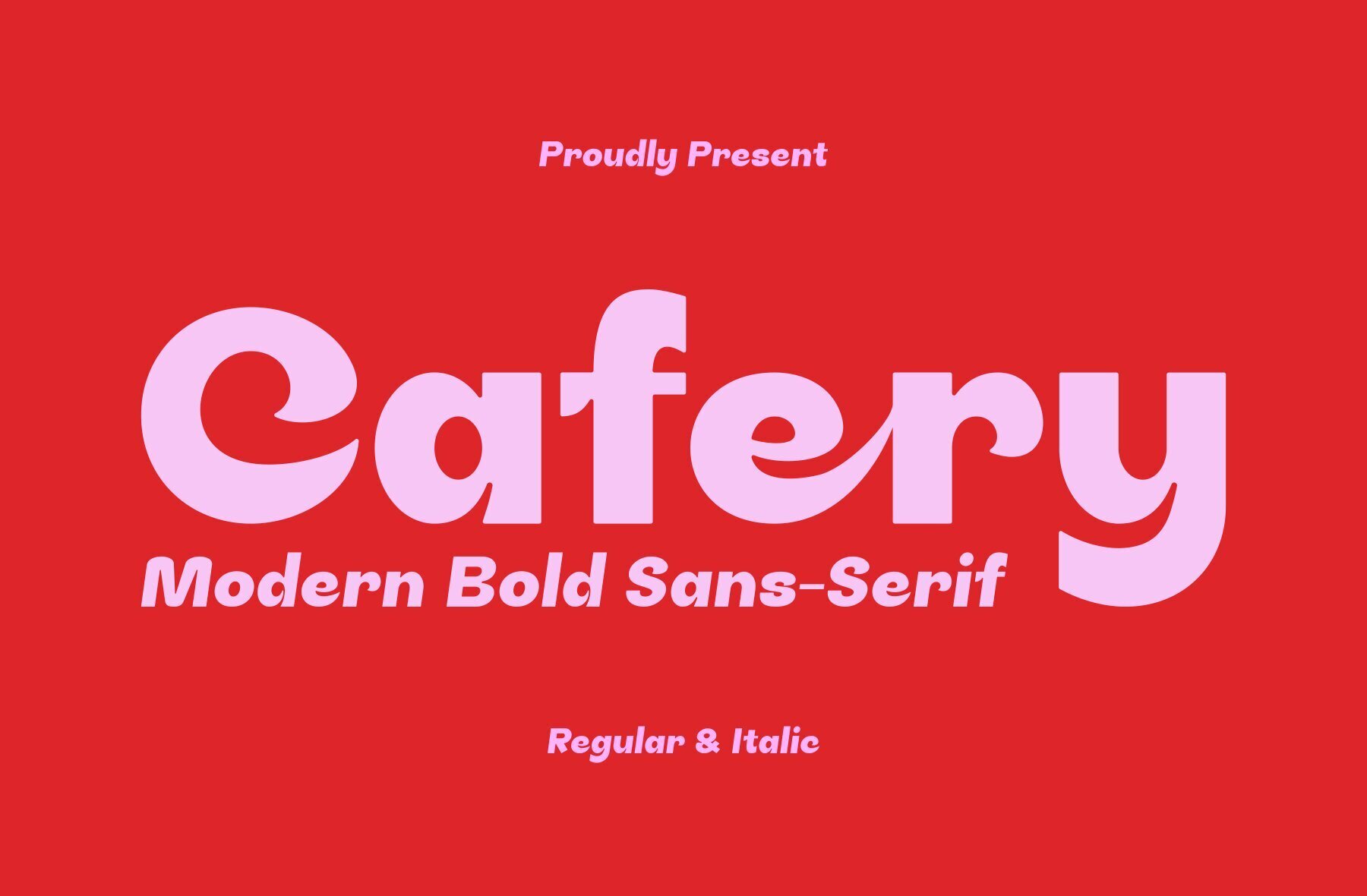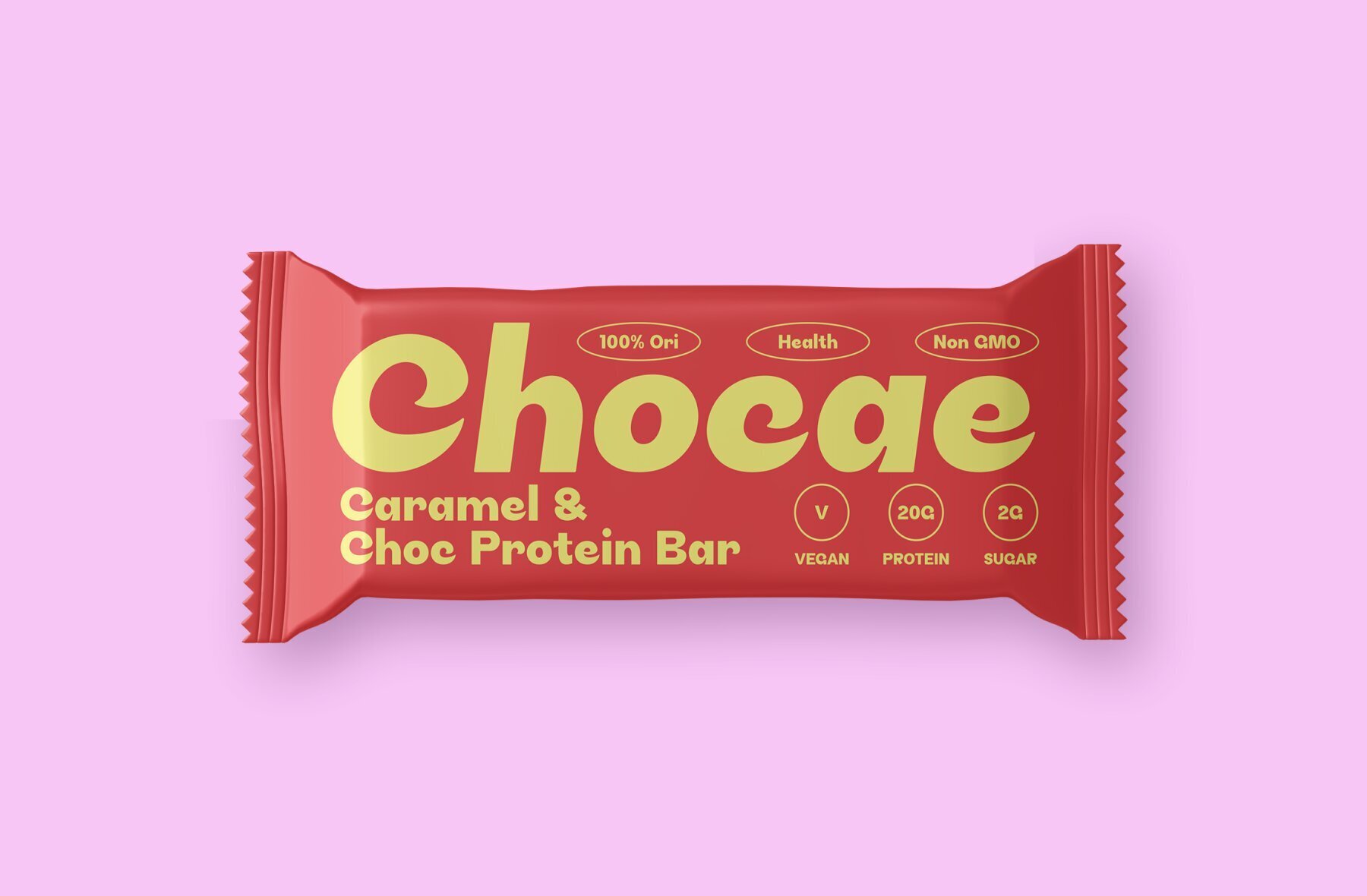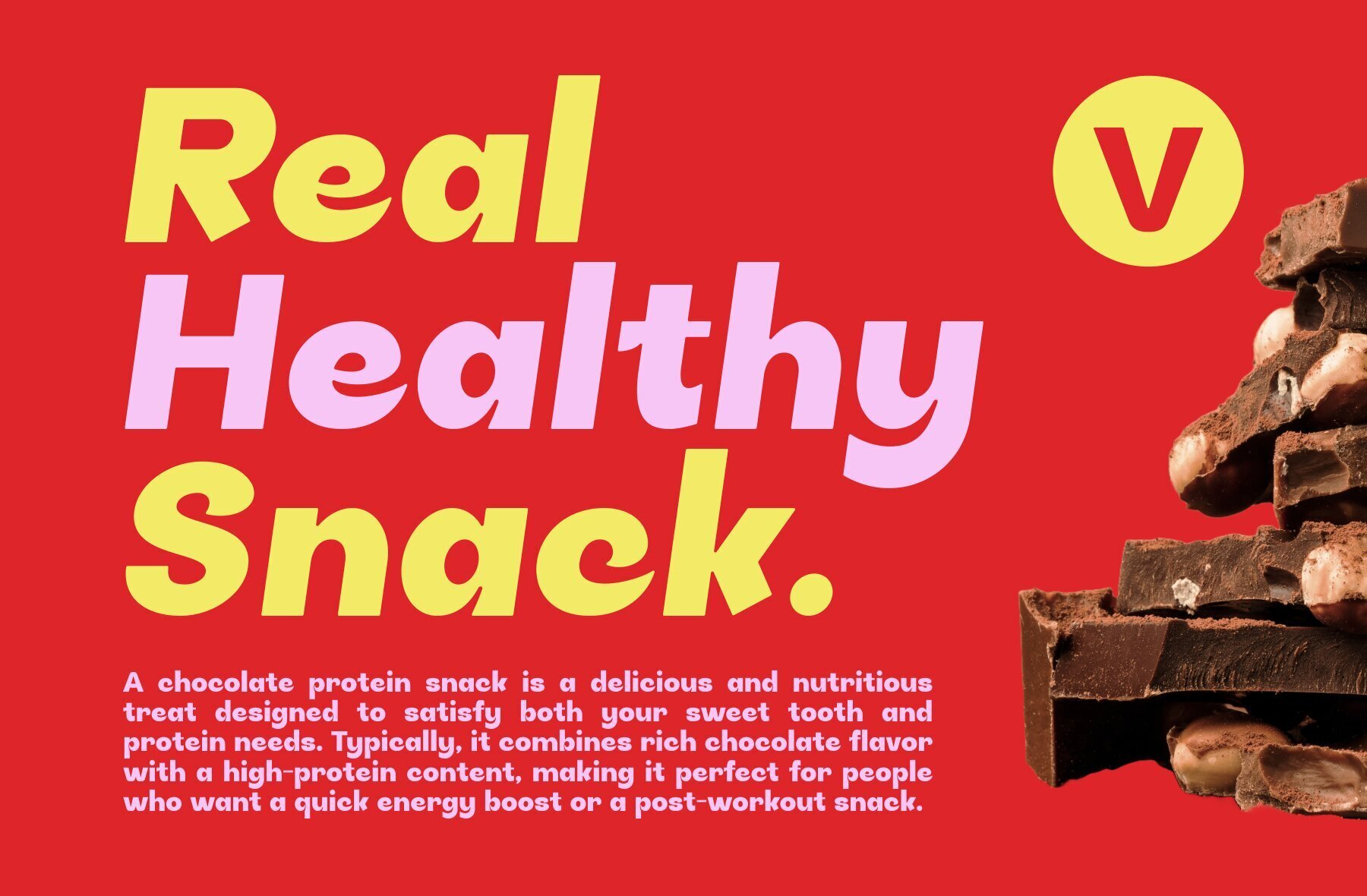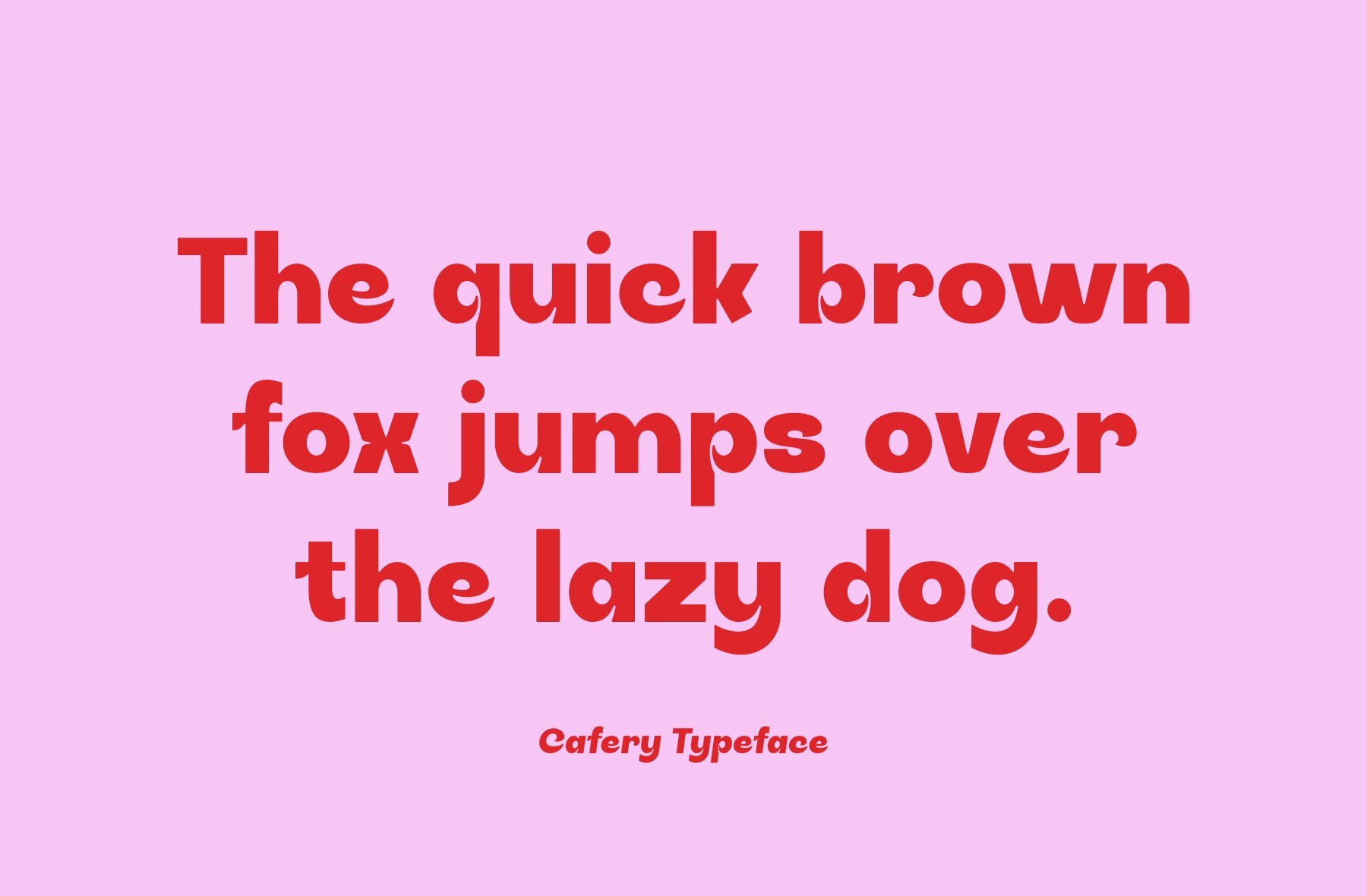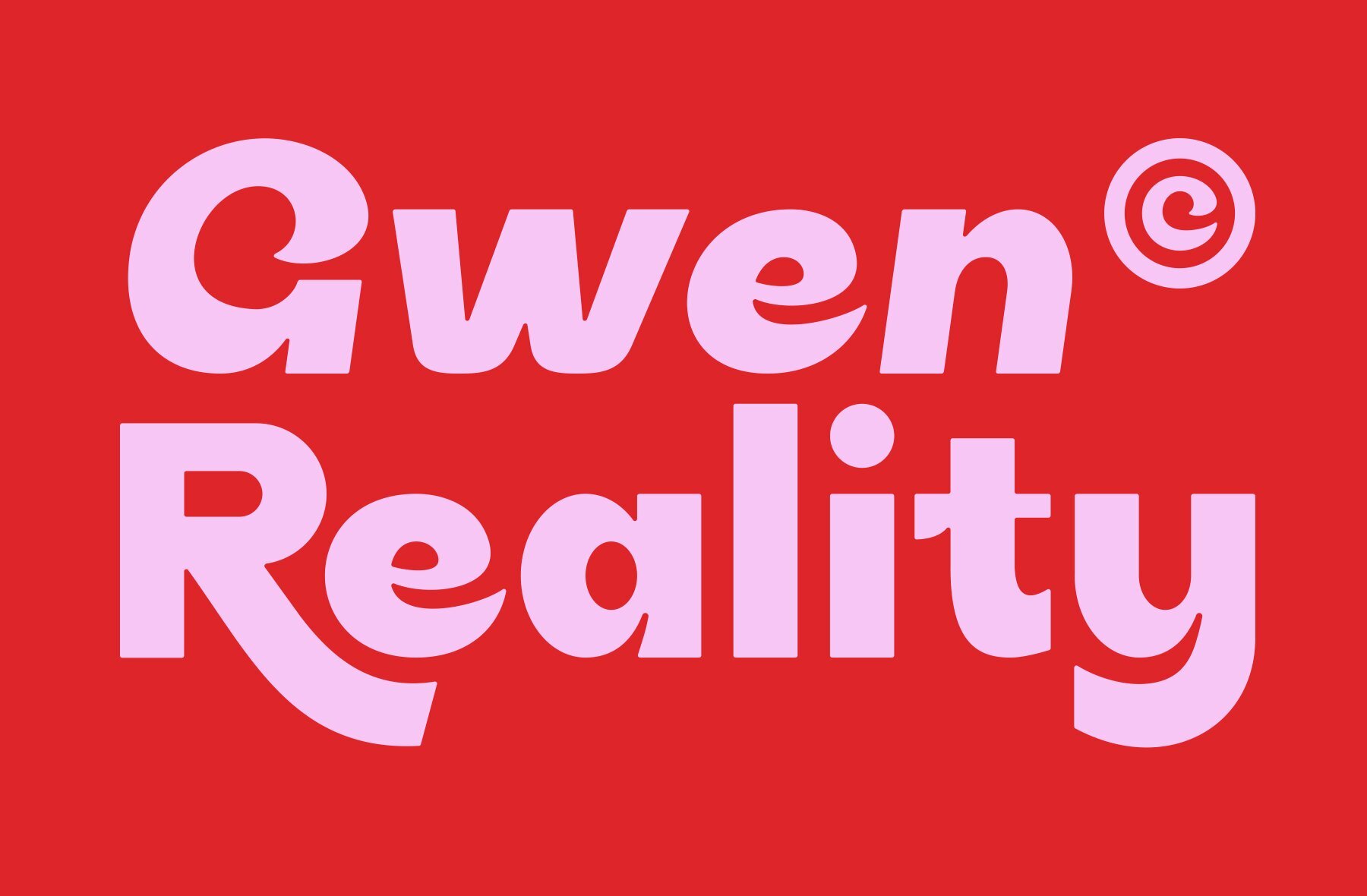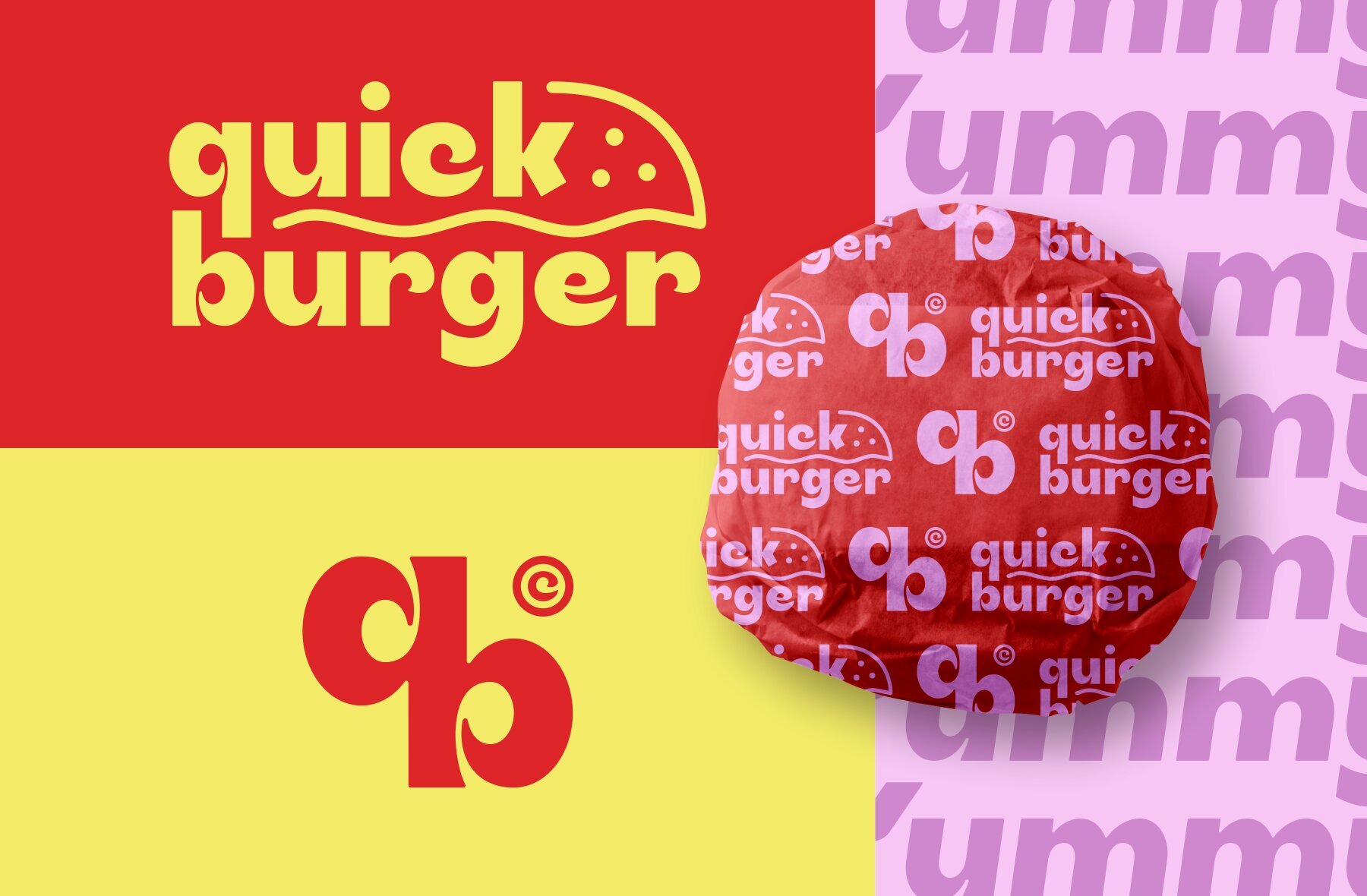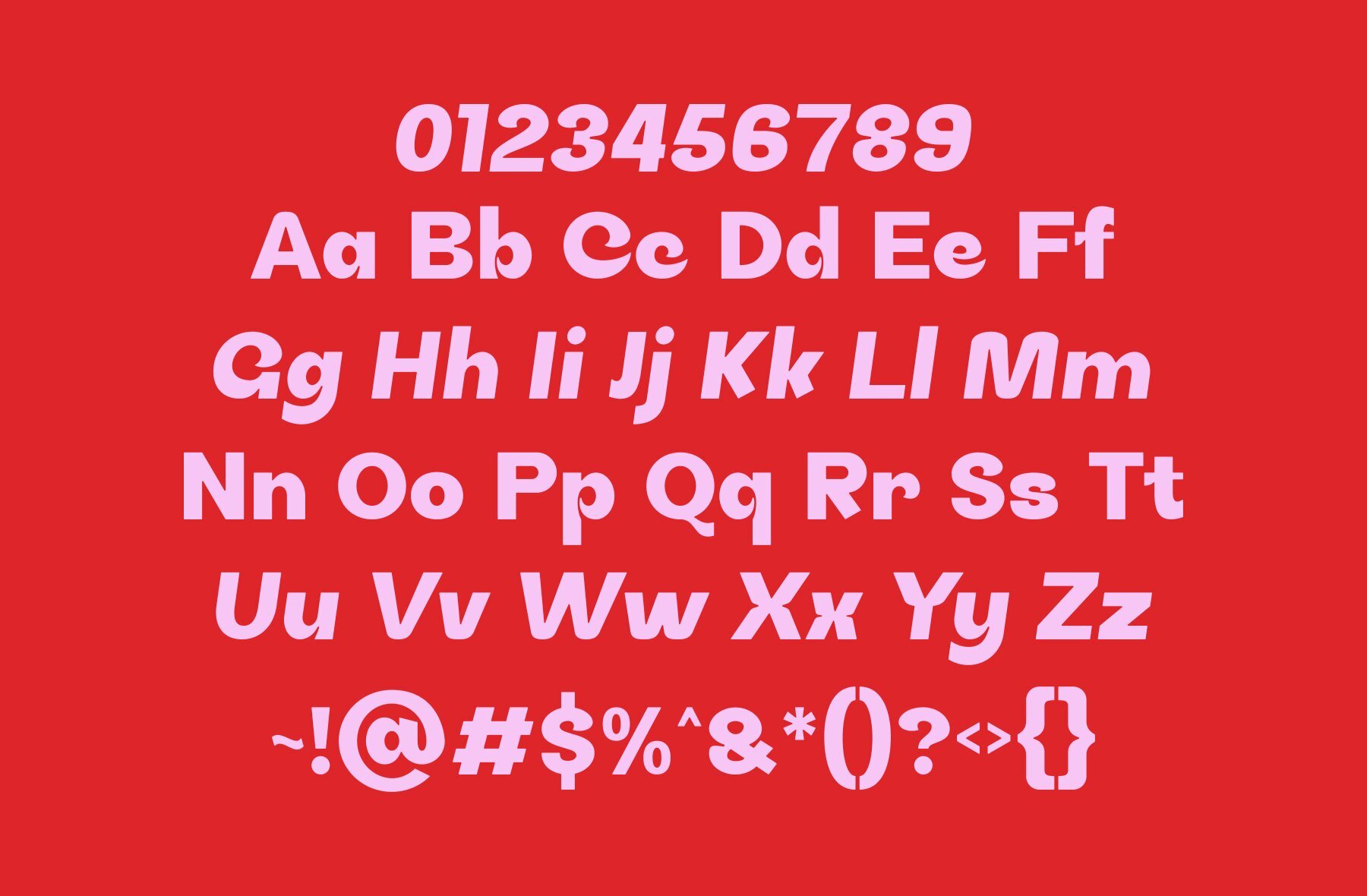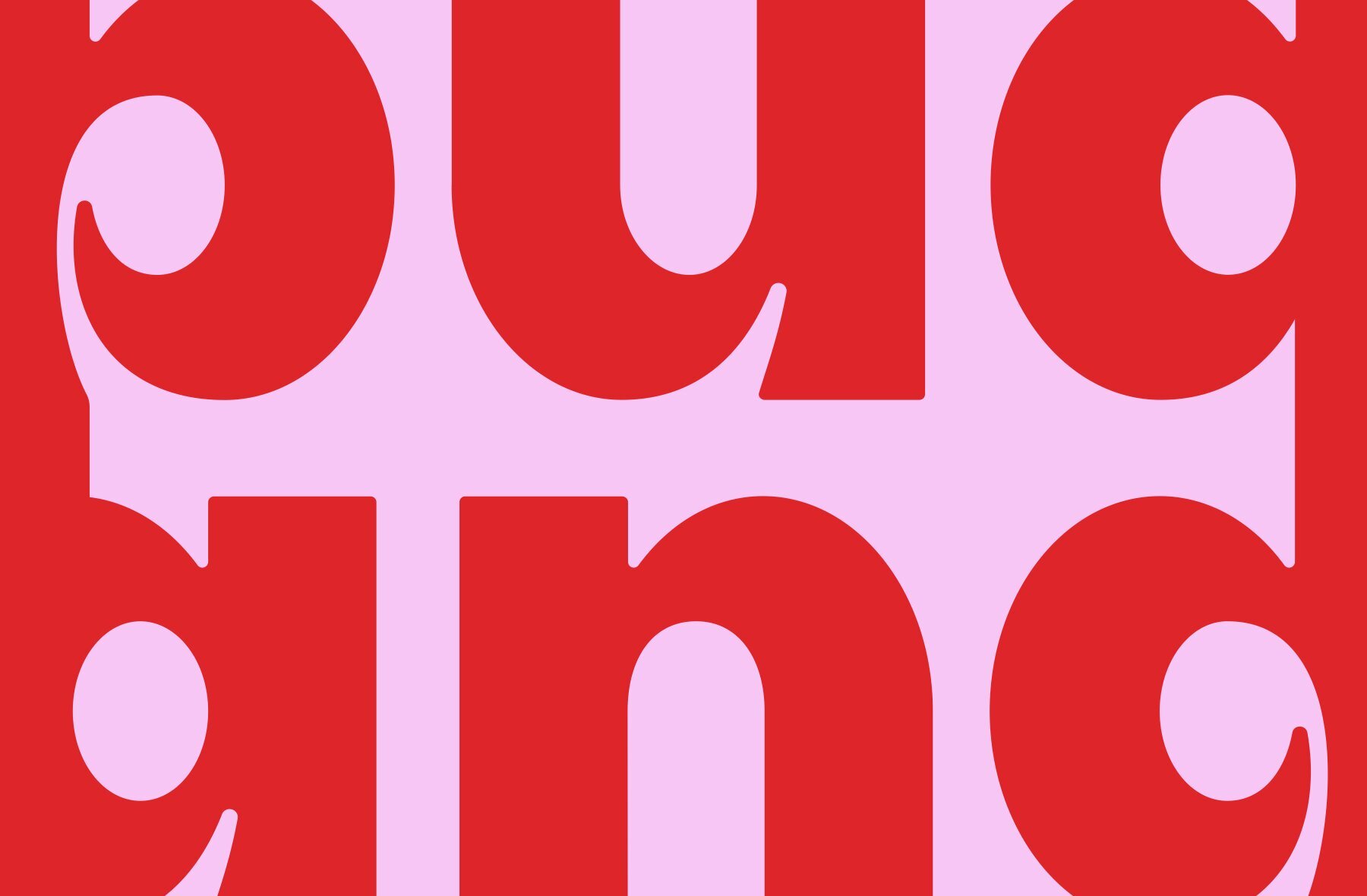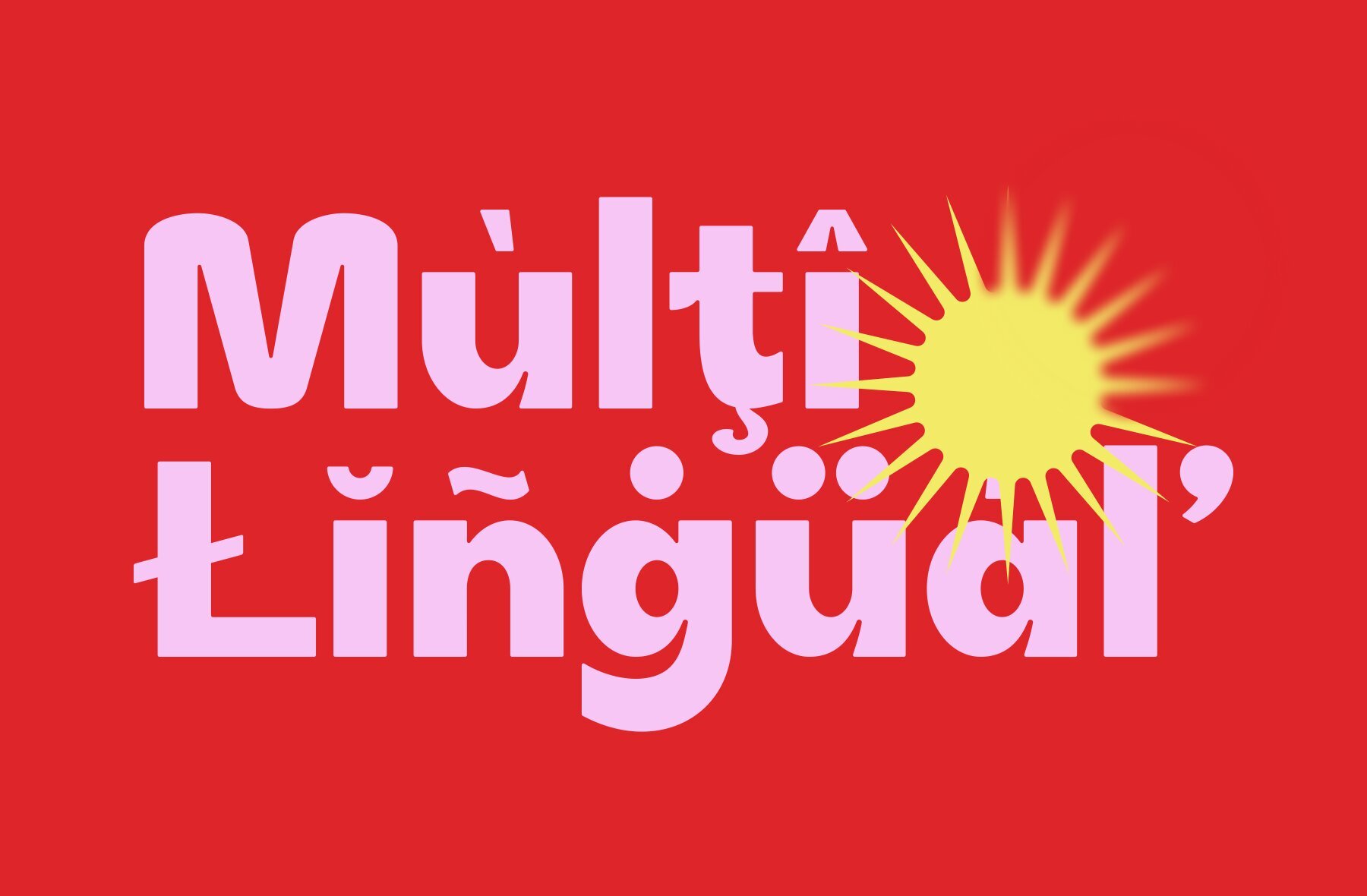
Cafery Font
Introducing Cafery is a modern bold sans serif typeface, distinguished by its unique and thick letterforms. It offers two styles regular and italic, providing versatility in design. This font stands out with several unique ligatures and alternate characters, allowing for creative and customized typographic expression. Its bold and contemporary aesthetic makes Cafery an excellent choice for various design applications, including product packaging, brand identity, and more. The clean, striking appearance of this typeface enhances visual impact, making it ideal for projects that require both modernity and boldness.